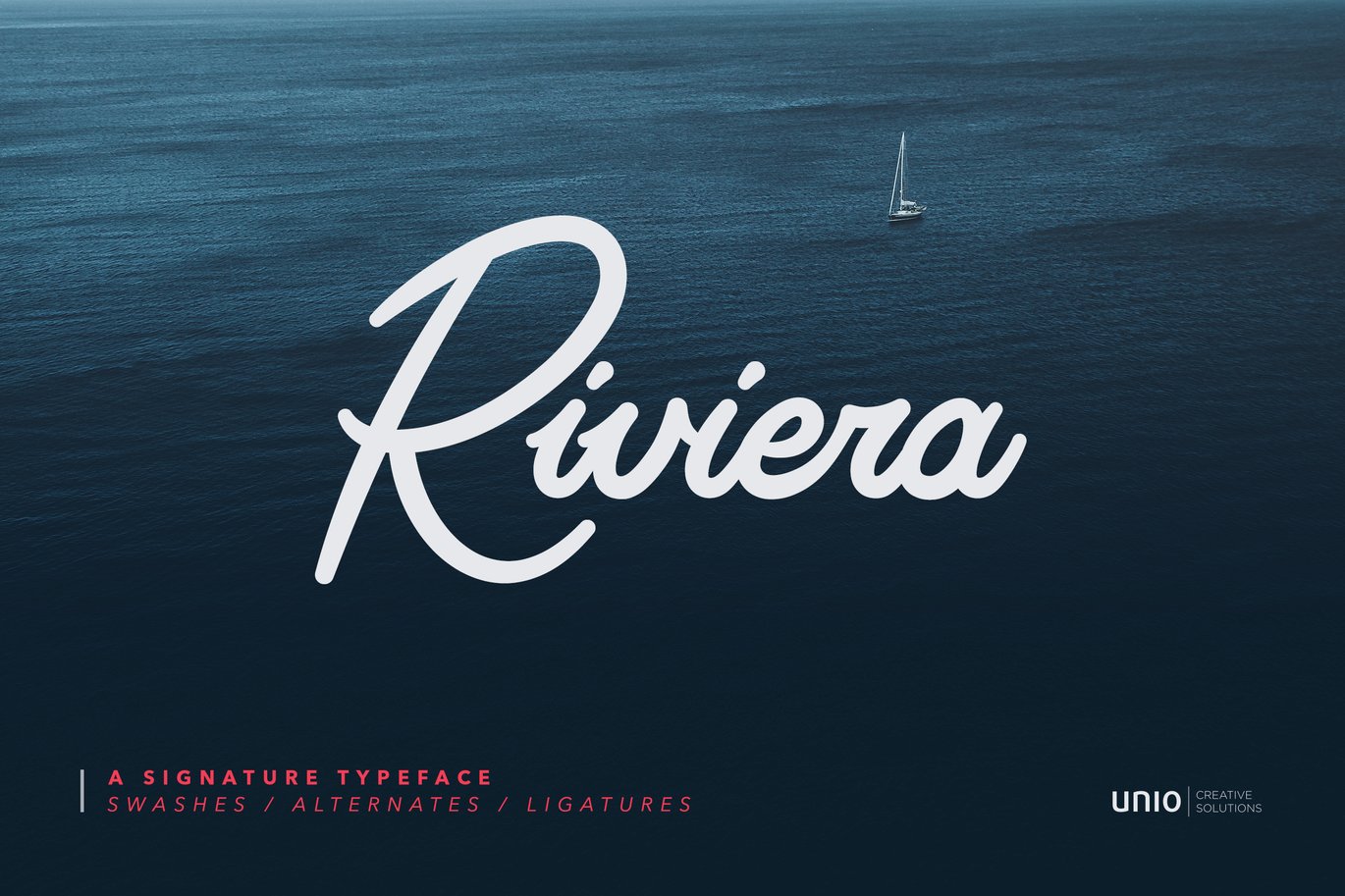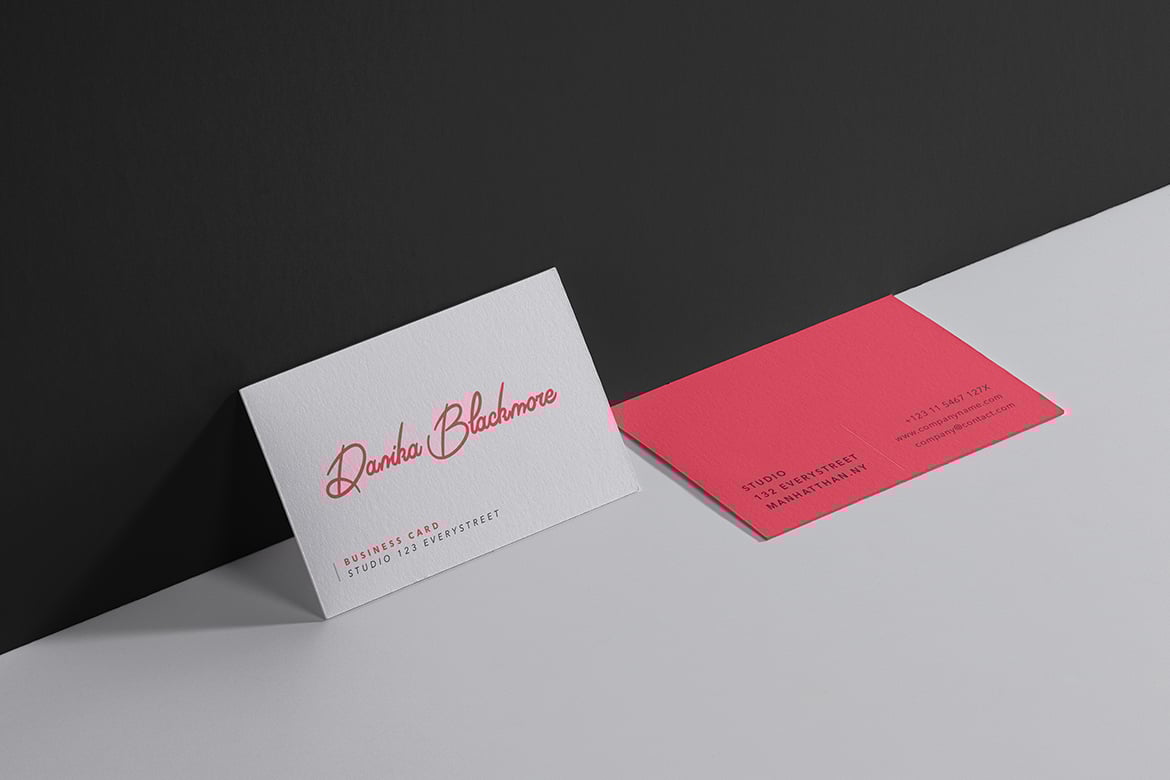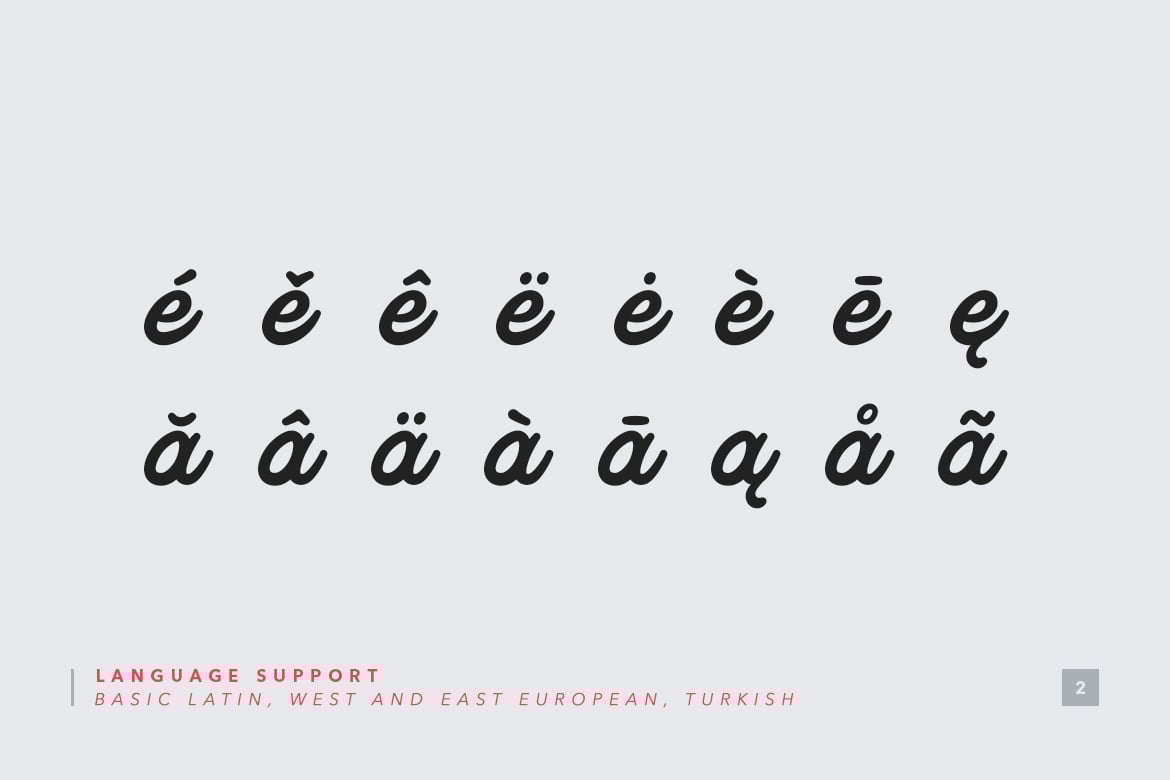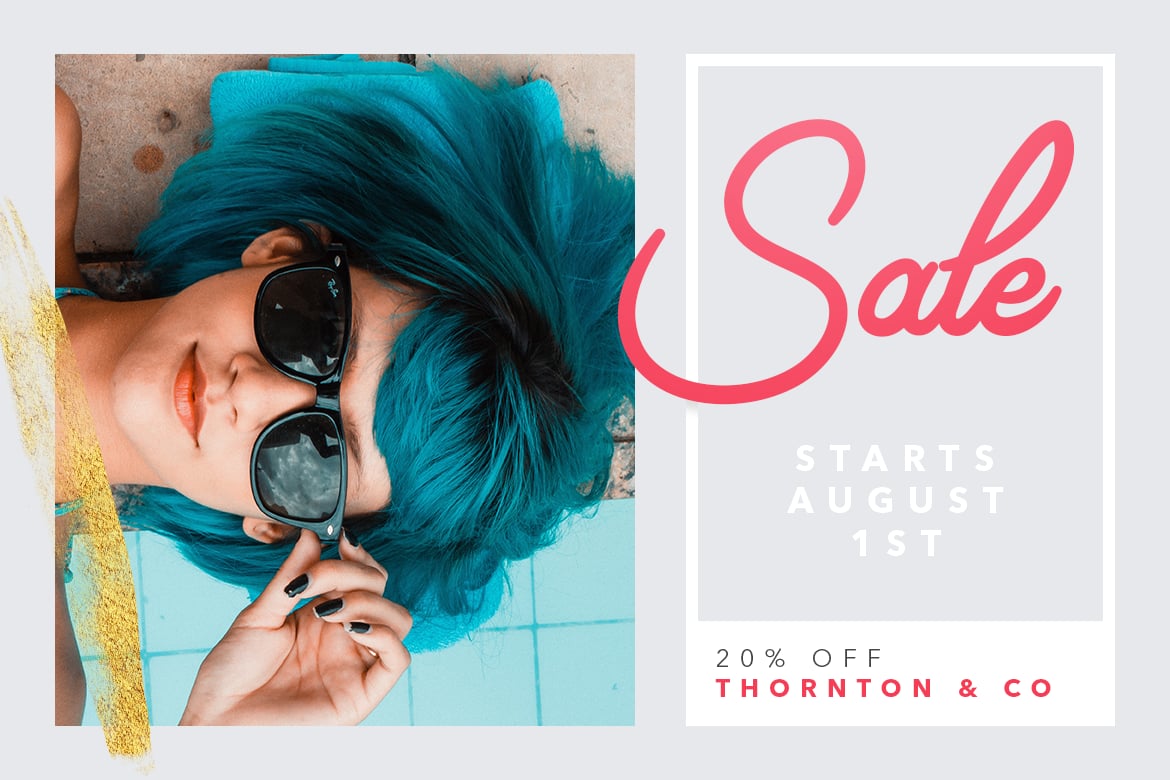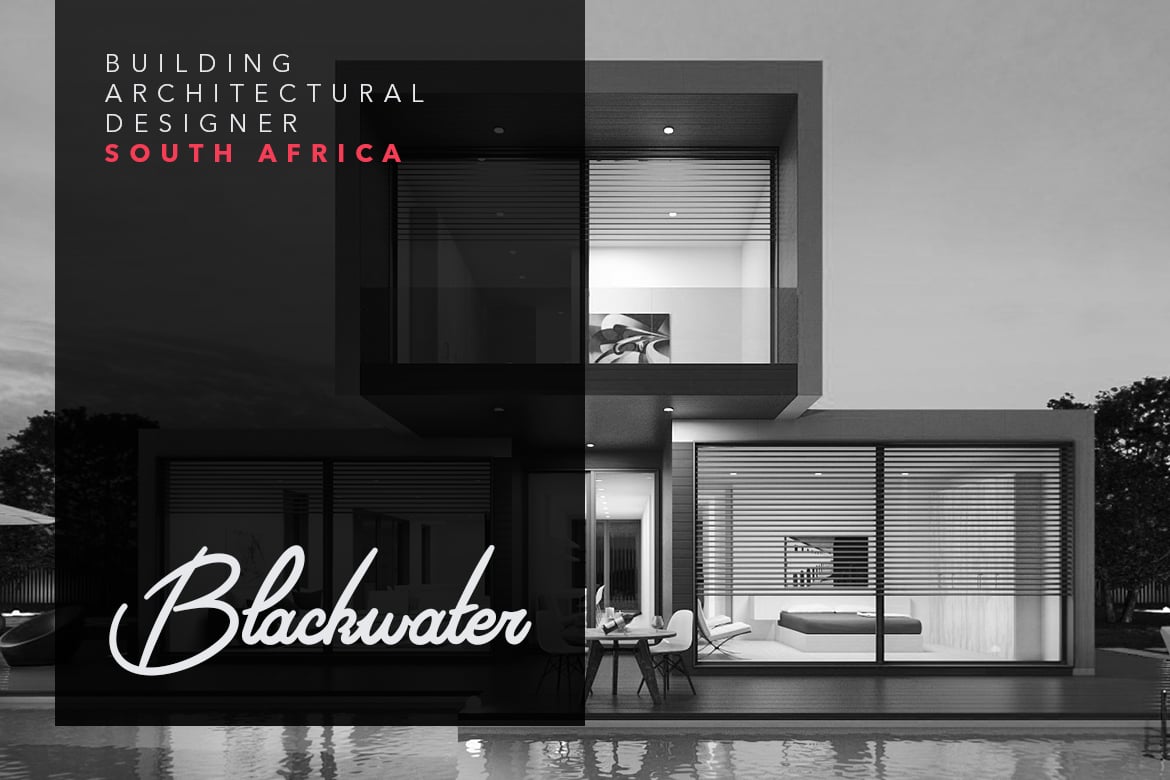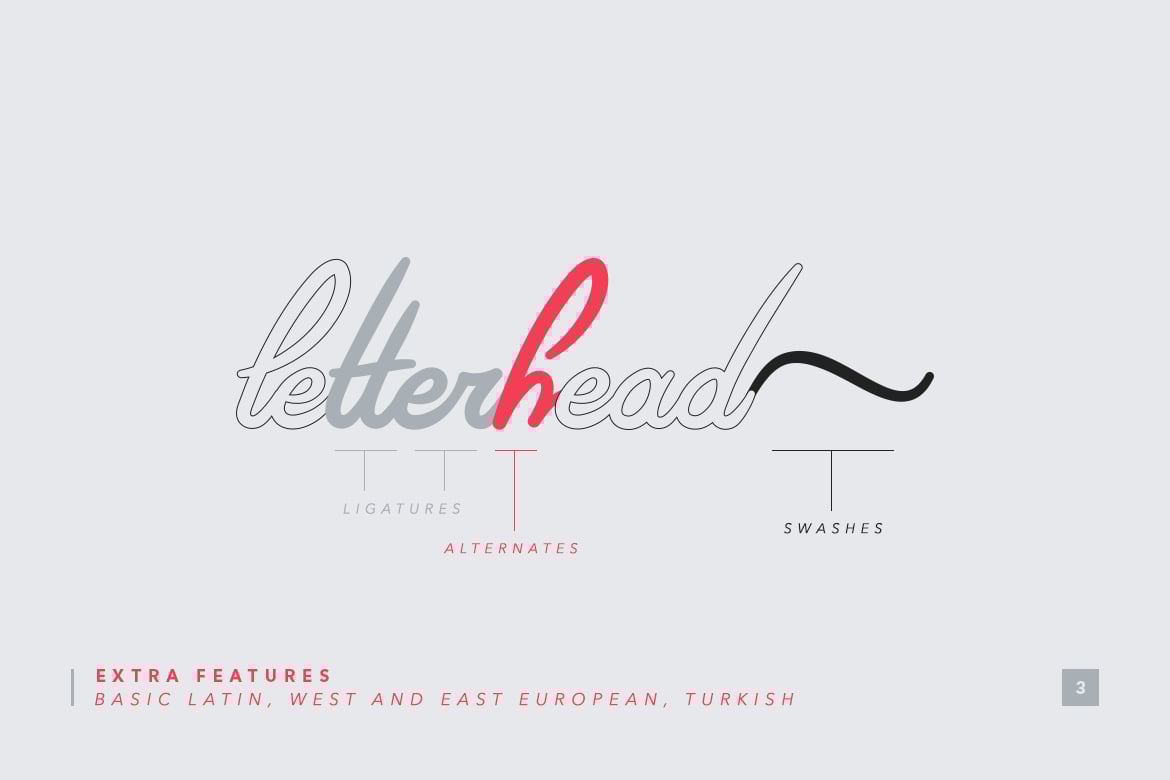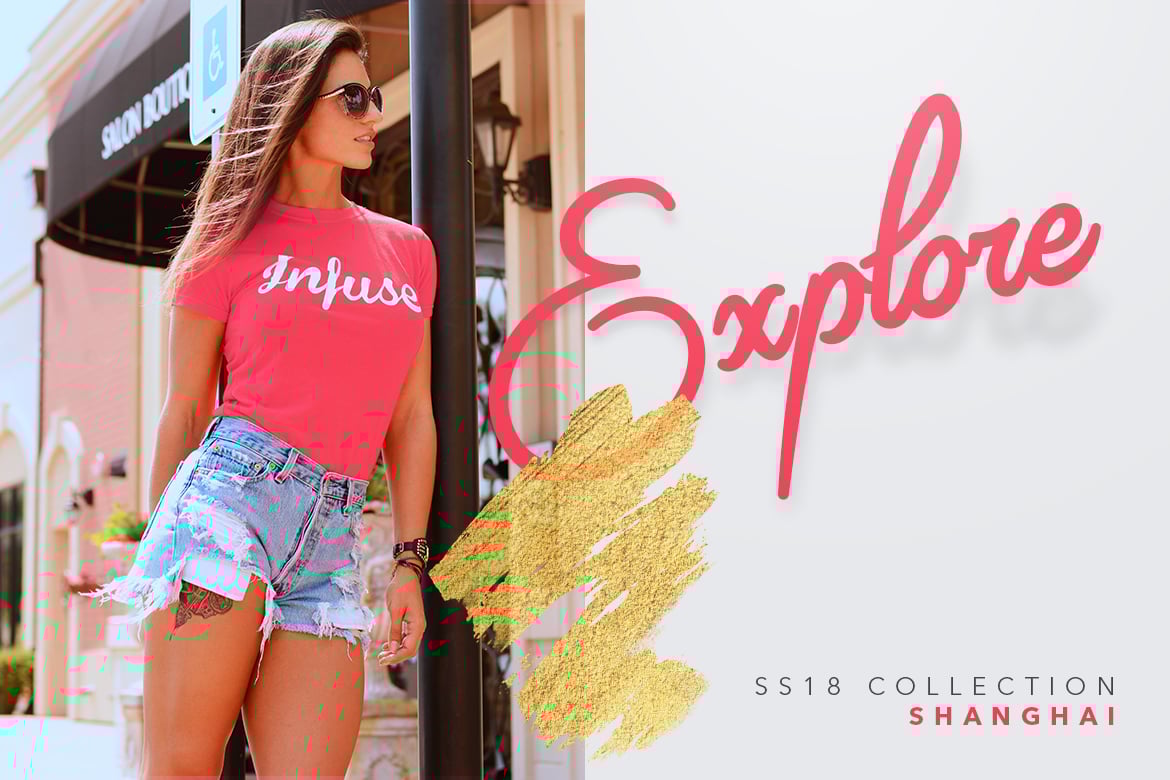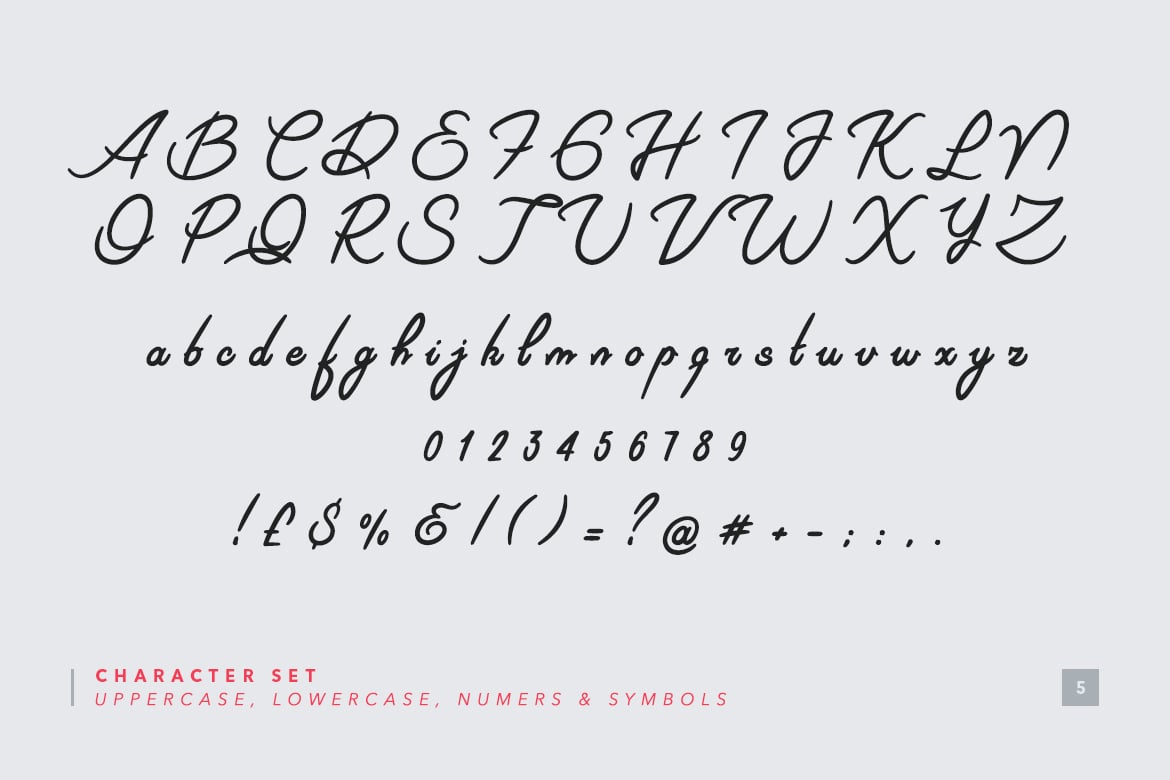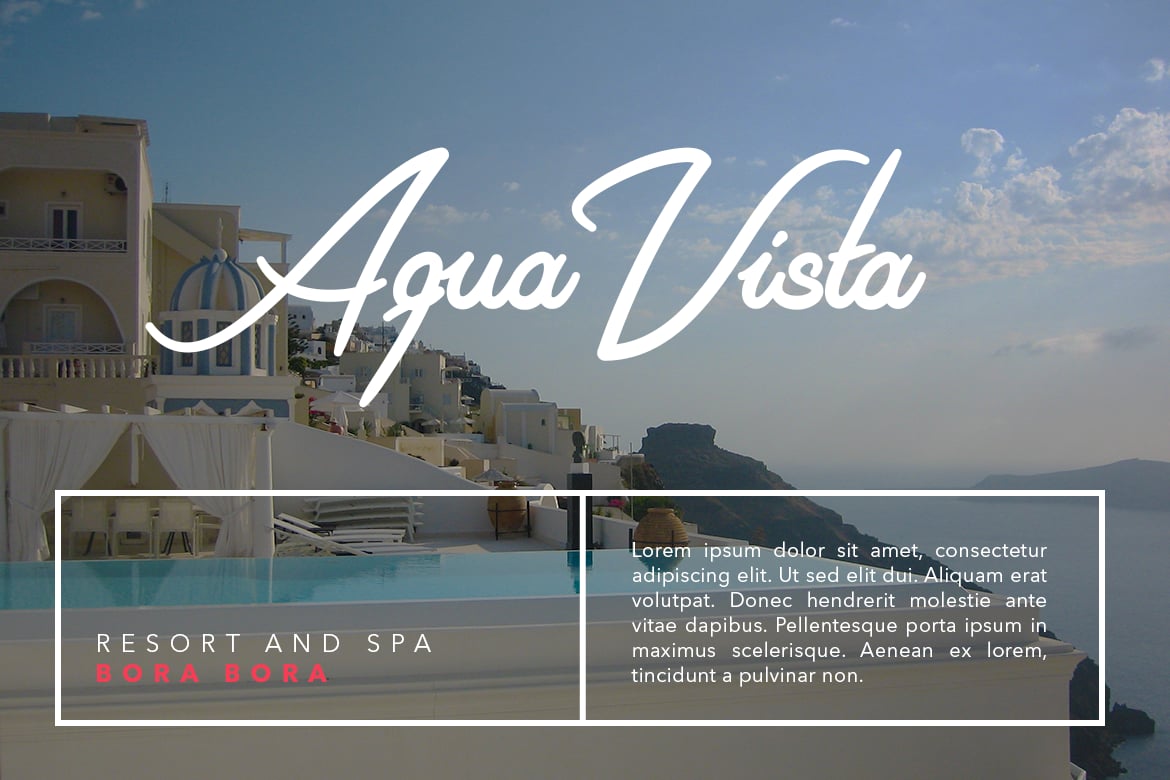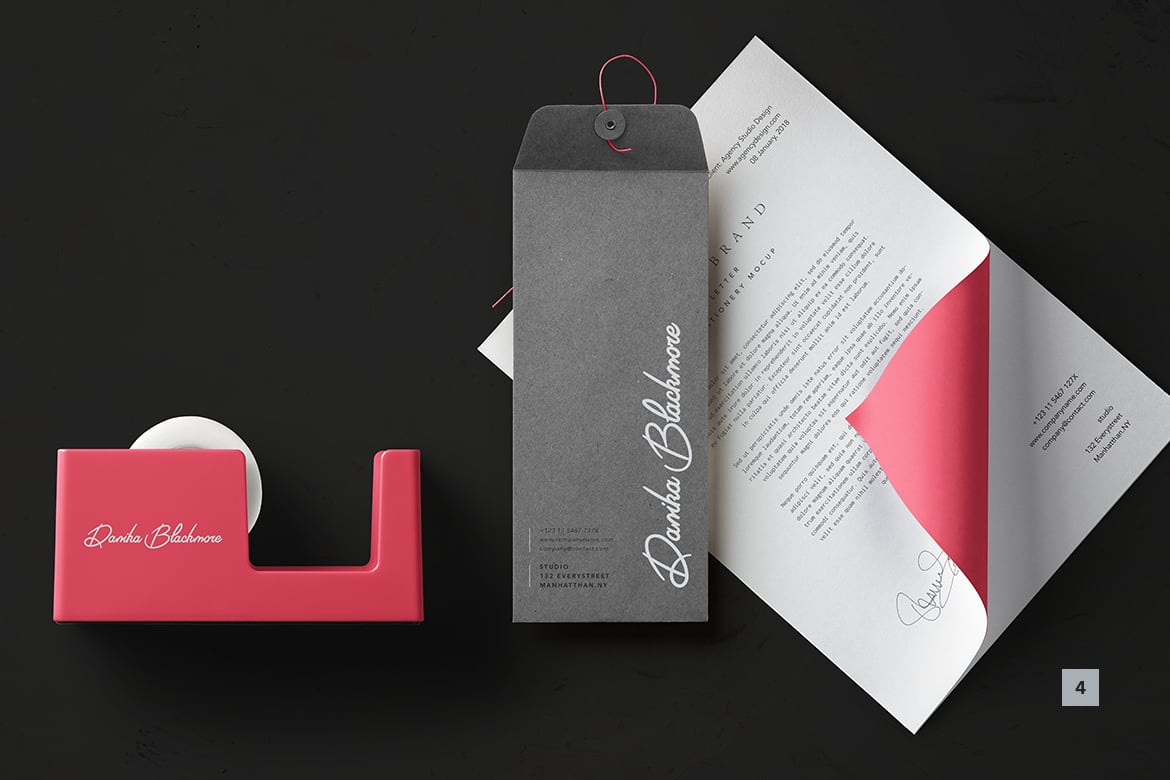
Riviera – Signature Font
Introducing “Riviera” – a modern and elegant signature font that has been crafted with gentle curves and sophisticated strokes.
This mono weight calligraphy font has been attentively designed to look as close to a natural handwritten script and it is ideal for any e-commerce brand, blog, social feed or any modern business that wants to appear distinctively.
Use it indistinctly for adding a unique touch to any branding project!
Riviera also offers a beautiful typographic harmony with more than 400 characters and covers several languages based on the Latin alphabet; the whole font design has also been completed with several alternates, 57 natural looking ligatures and some attractive swashes.
Multilanguage support
OpenType features (alternates, ligatures and swashes)
PUA Coded Extra Characters (alternates, ligatures)